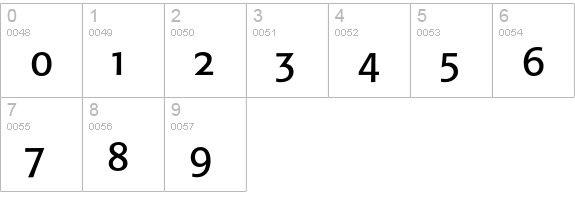
Formata Expert BQ Regular Font Details
Formata Expert BQ Regular is the standard, neutral variant in the Formata typeface family \xE2\x80\x94 well suited to general body text, paragraphs, and standard typographic work.